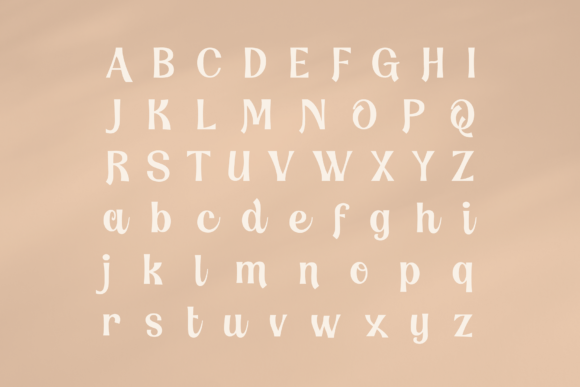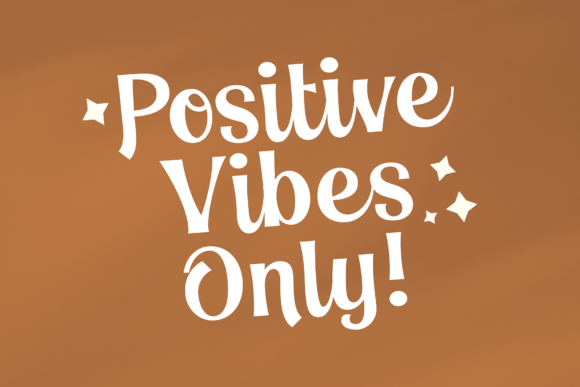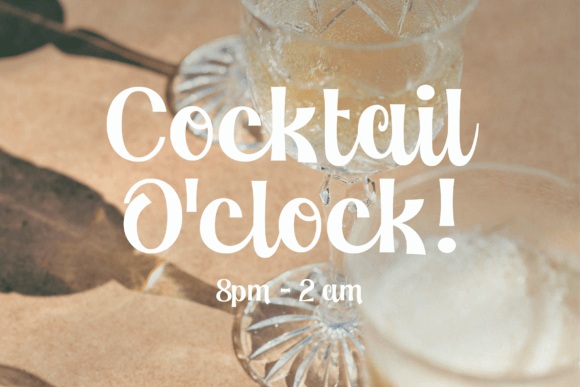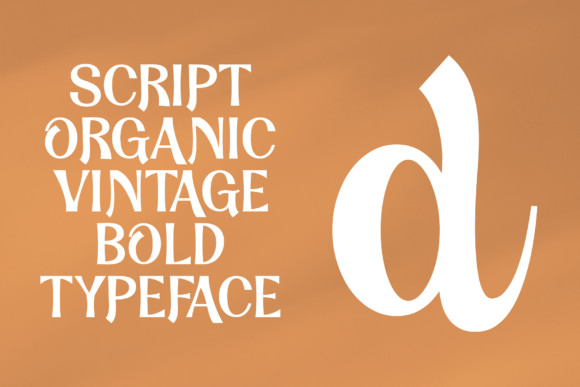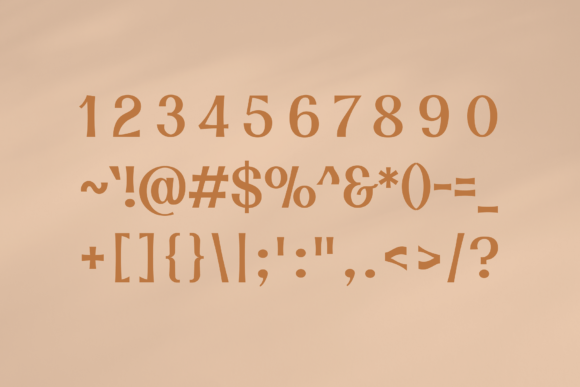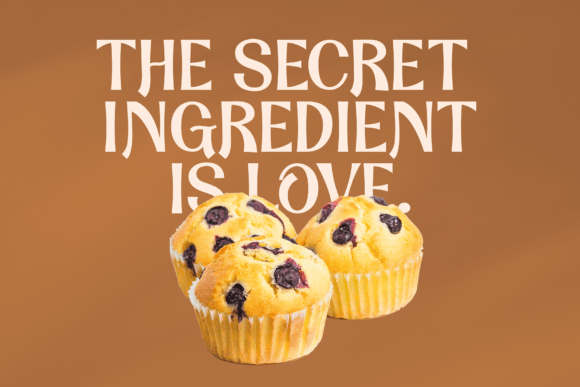
Dandy Script Font: Elevate Your Designs with Elegance and Sophistication
In the world of typography, few fonts manage to strike a balance between classic elegance and contemporary flair. However, Dandy Script Font is a stunning exception. This beautiful typeface is designed to bring a touch of sophistication to high-end designs, making it perfect for projects that demand refinement and luxury. In this article, we’ll explore the features and benefits of Dandy Script Font, and how it can elevate your designs to new heights.
The Characteristics of Dandy Script Font
Dandy Script Font boasts graceful, flowing lines and delicate curves that exude elegance and poise. Its classic design is reminiscent of traditional calligraphy, yet its modern twist makes it versatile and fresh. The font’s refined aesthetic is characterized by:
- Flowing lines: Dandy Script’s fluid lines create a sense of movement and harmony, making it perfect for designs that require a touch of dynamism.
- Delicate curves: The font’s subtle curves add a level of sophistication and refinement, making it ideal for high-end designs.
- Classic elegance: Dandy Script’s traditional roots evoke a sense of timelessness and luxury, perfect for designs that require a touch of heritage.
- Contemporary flair: The font’s modern twist ensures it remains fresh and relevant, making it suitable for a wide range of design applications.
Perfect for High-End Designs
Dandy Script Font is designed to elevate high-end designs with its refined and luxurious aesthetic. Its sophisticated look makes it perfect for:
- Invitations: Whether it’s a wedding invitation, a formal gala, or a corporate event, Dandy Script Font adds a touch of elegance and sophistication.
- Branding: The font’s luxurious look makes it perfect for high-end brands that require a sophisticated visual identity.
- Packaging: Dandy Script Font can add a touch of refinement to luxury packaging, making it perfect for high-end products.
- Design applications: The font’s versatility makes it suitable for a wide range of design applications, from editorial design to advertising.
Dandy Script Font offers numerous benefits for designers and crafters, including:
- Ease of use: The font is easy to read and works well in a variety of design applications.
- Versatility: Dandy Script Font can be used in a range of design projects, from digital designs to print materials.
- Customization: The font can be customized to suit specific design requirements, making it perfect for bespoke designs.
- Time-saving: With Dandy Script Font, designers can create high-end designs quickly and efficiently, saving time and effort.
Tips for Using Dandy Script Font
To get the most out of Dandy Script Font, follow these tips:
- Use it sparingly: Dandy Script Font is best used sparingly to add a touch of elegance and sophistication to designs.
- Pair it with neutral fonts: Pairing Dandy Script Font with neutral fonts can help create a balanced and harmonious design.
- Experiment with colors: The font works well with a range of colors, so experiment with different color schemes to find the perfect combination.
- Pay attention to typography: Pay attention to typography and ensure that the font is used in a way that is consistent with the design’s overall aesthetic.
Dandy Script Font is a stunning typeface that blends classic elegance with contemporary flair. Its refined and luxurious aesthetic makes it perfect for high-end designs that require a touch of sophistication. With its flowing lines, delicate curves, and versatile design, Dandy Script Font is sure to elevate any project to new heights. Whether you’re a designer or crafter, this font is a must-have in your typography collection.